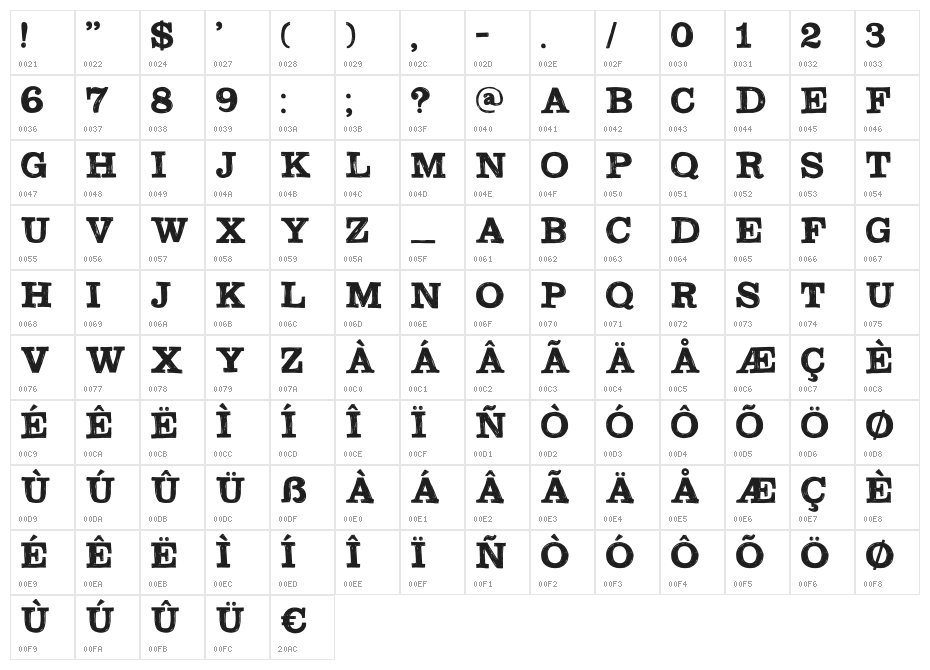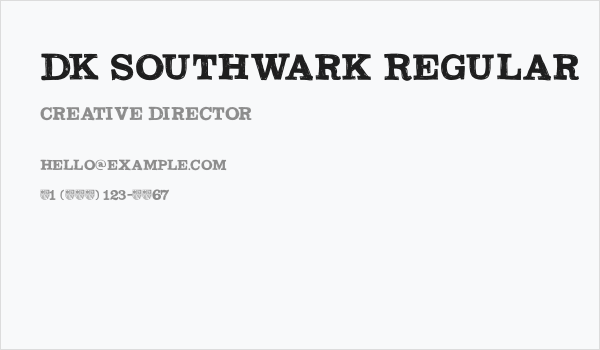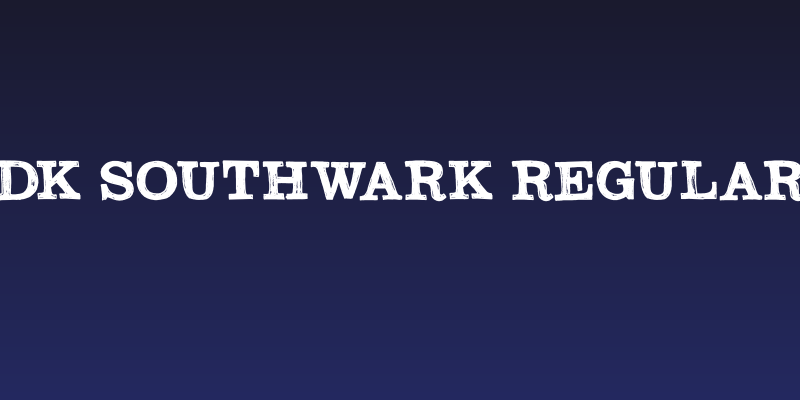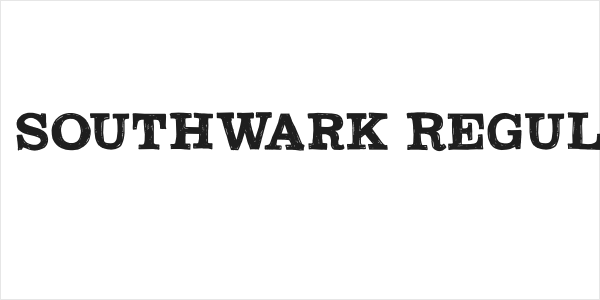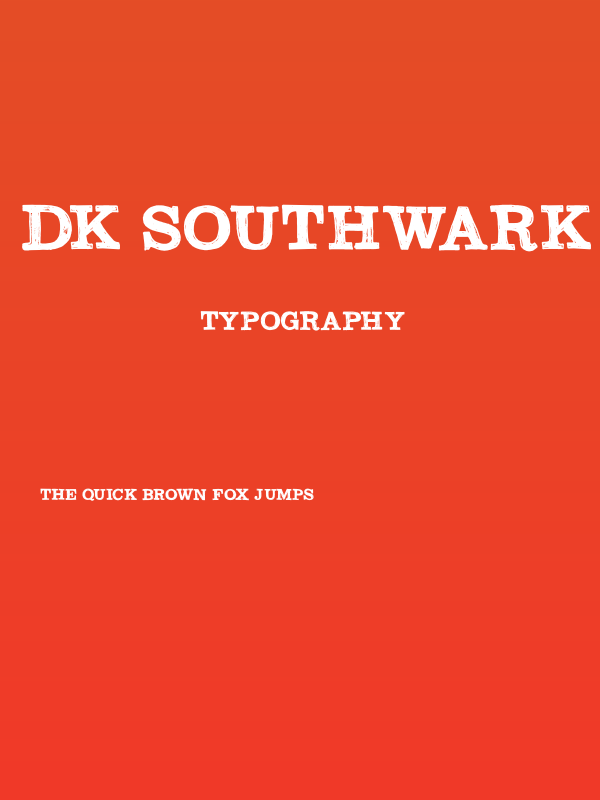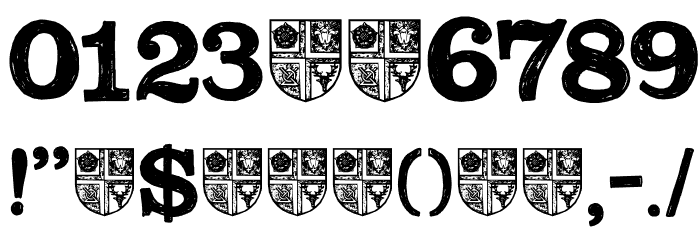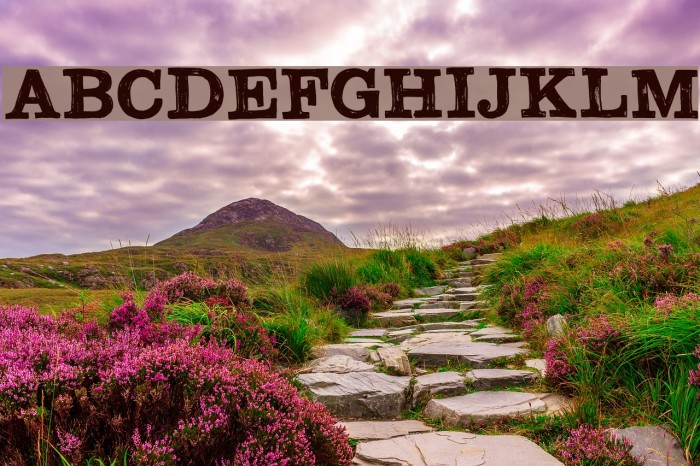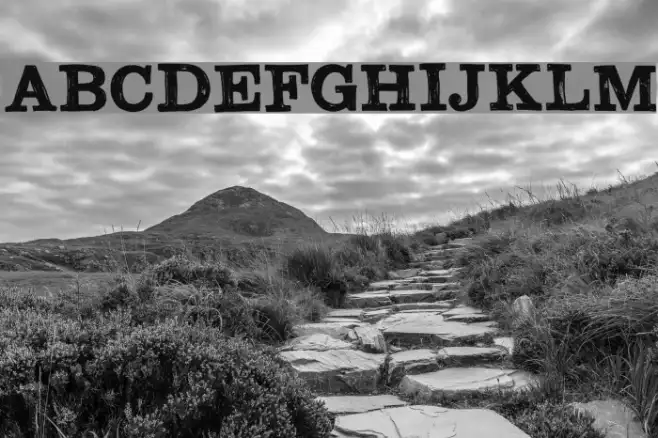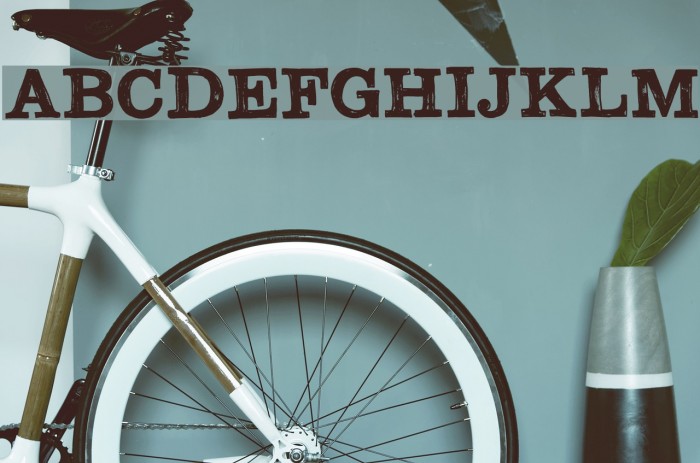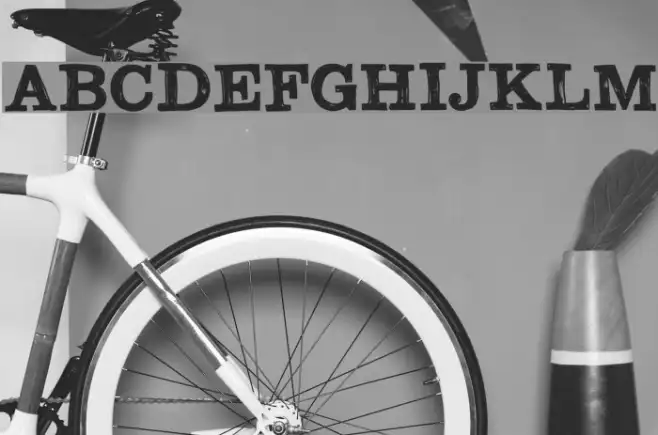
DK Southwark Regular Font
This font features a bold, decorative style with a vintage flair. The characters are heavily stylized with a textured, distressed appearance that gives them a rugged, worn look. The uppercase letters are prominent and commanding, while the numerals and special characters maintain the same bold and textured aesthetic. The font's unique design elements make it stand out, with intricate details that add to its overall charm. It's perfect for projects that require a strong, eye-catching typeface with a historical or rustic feel.
| Proposed Projects | Ideal for vintage-themed posters, branding for rustic or artisanal products, and historical event invitations. |